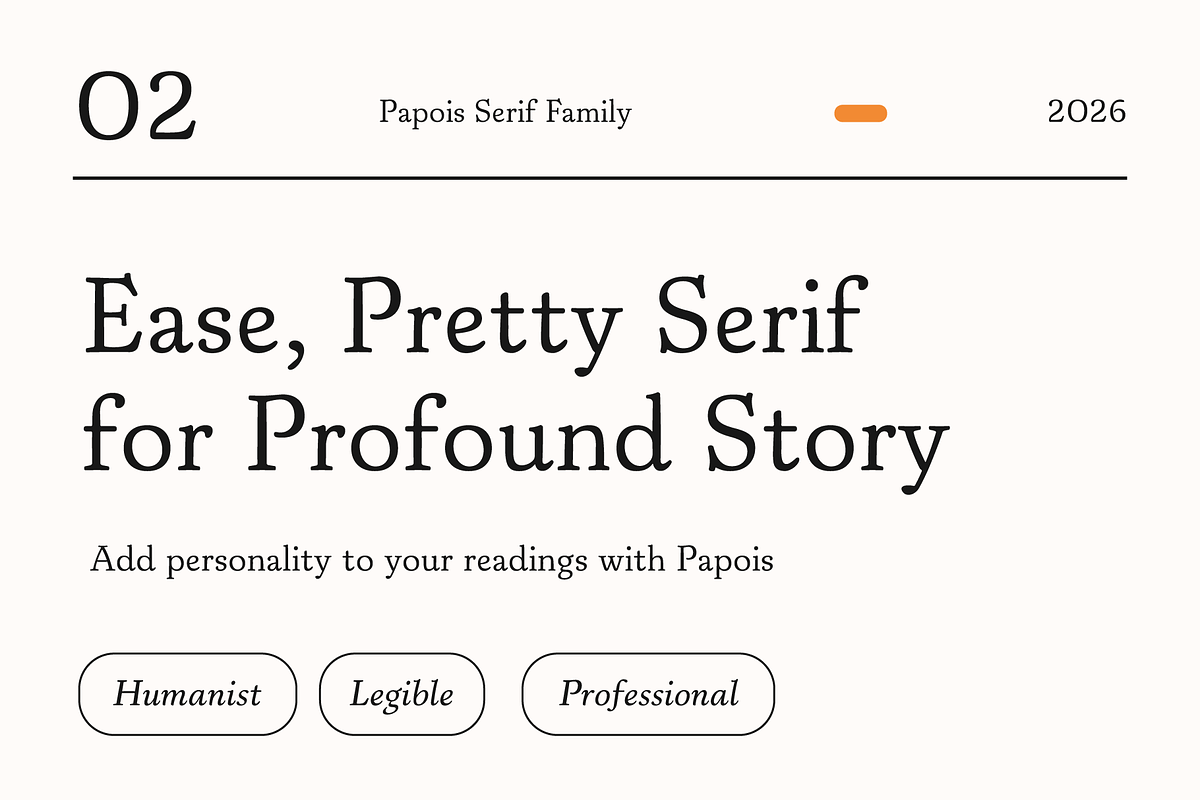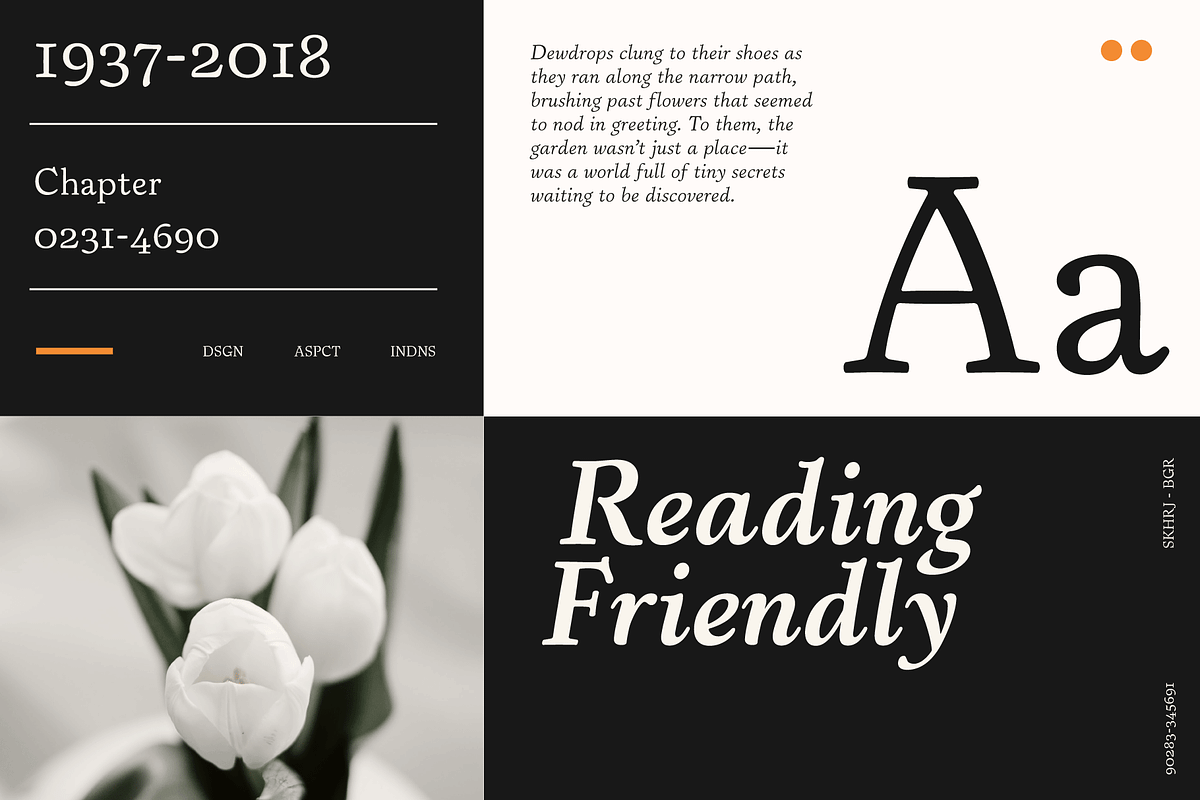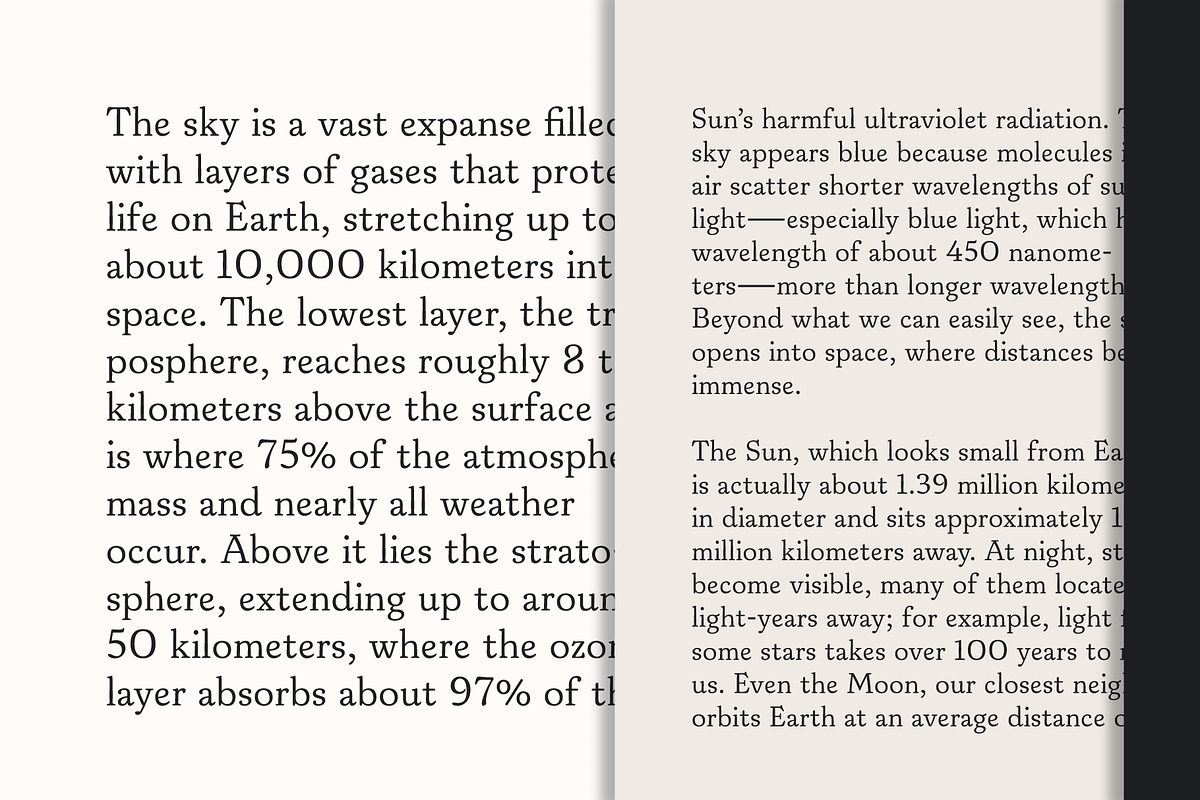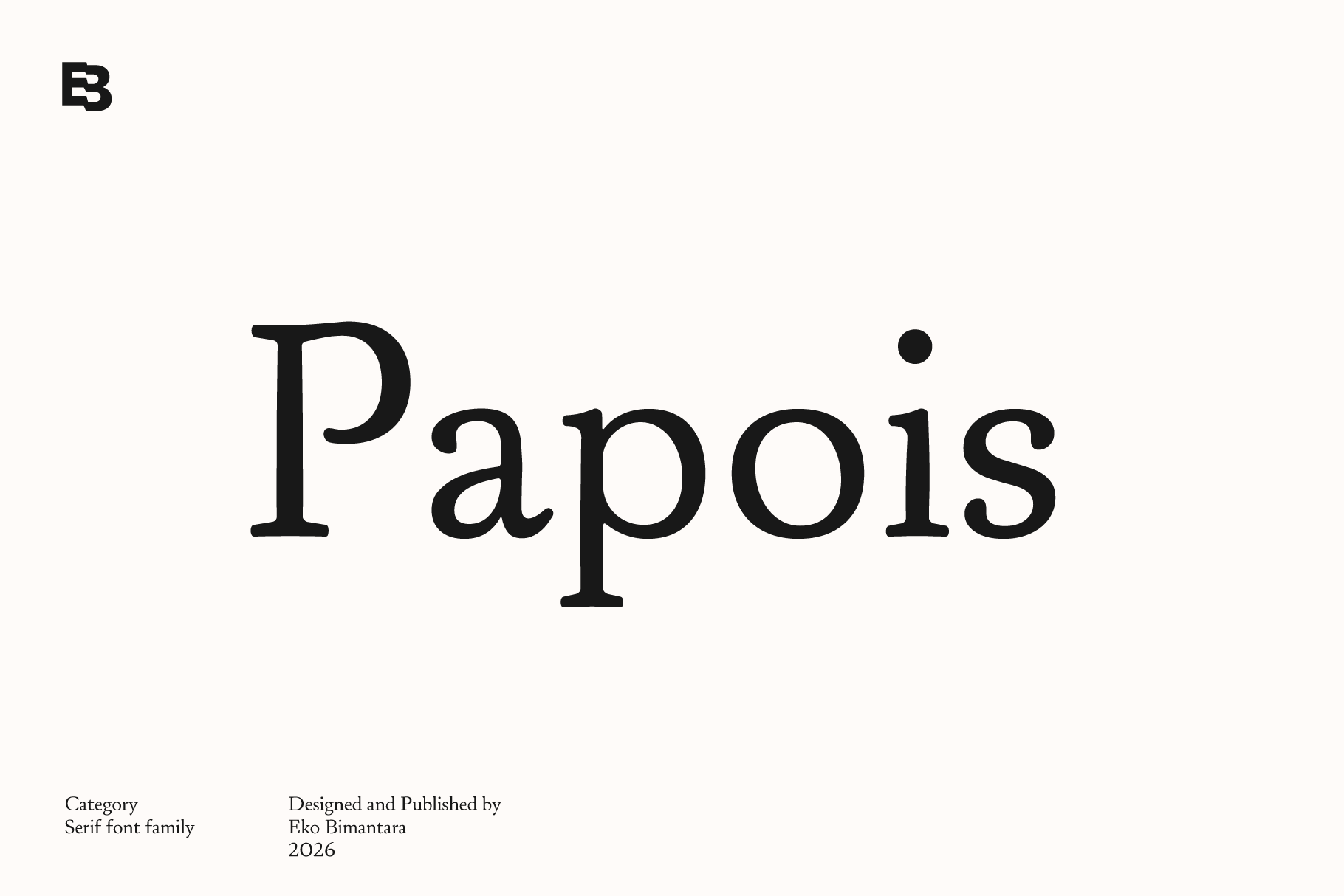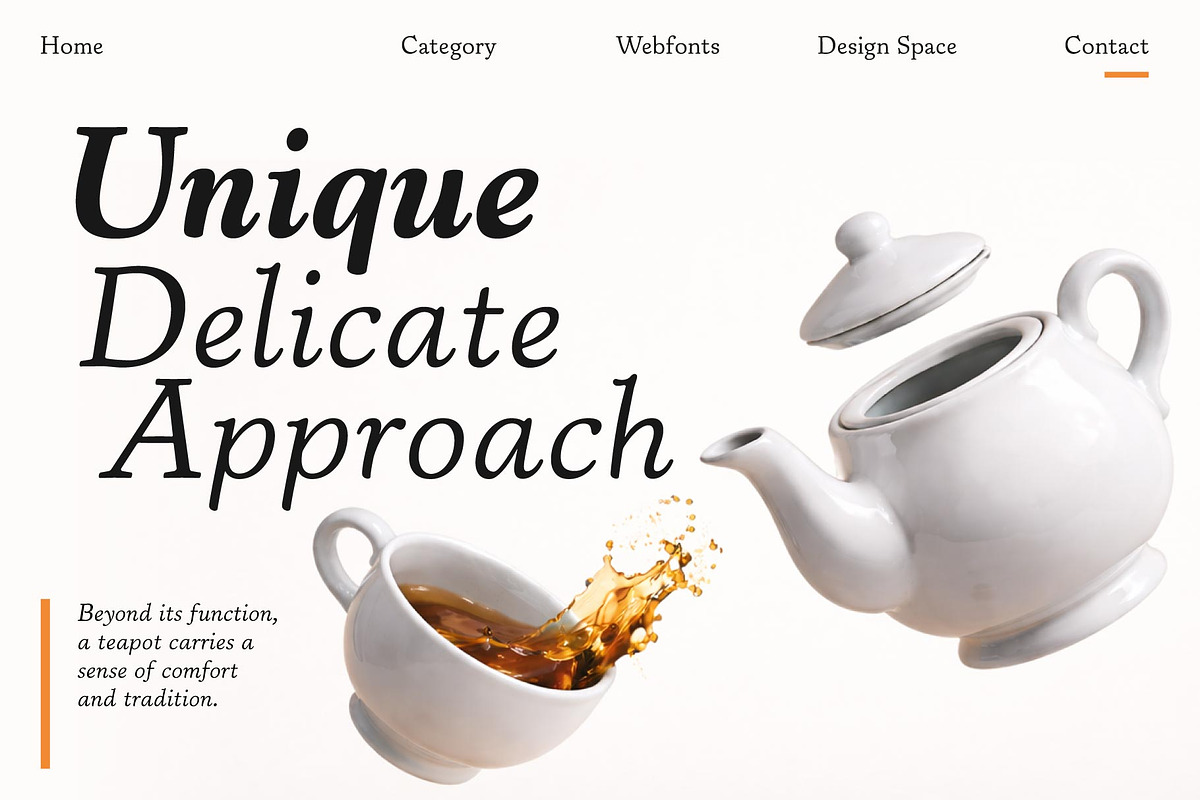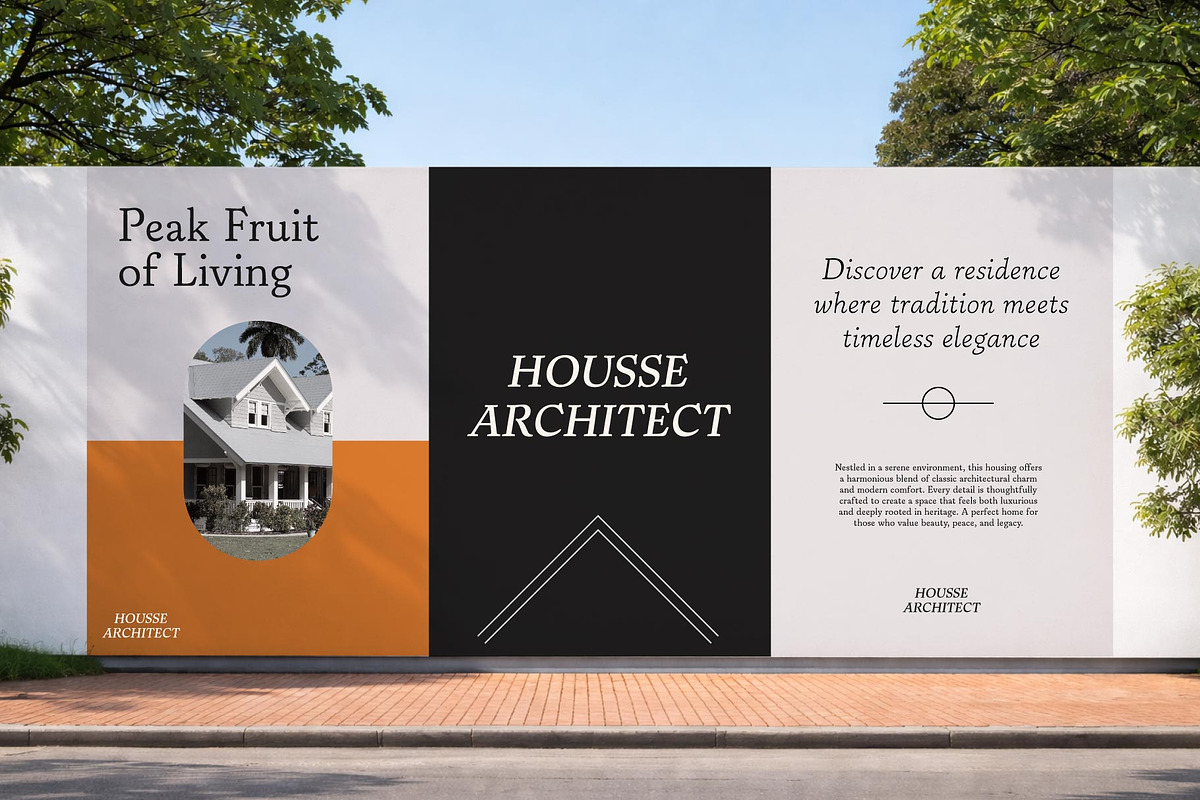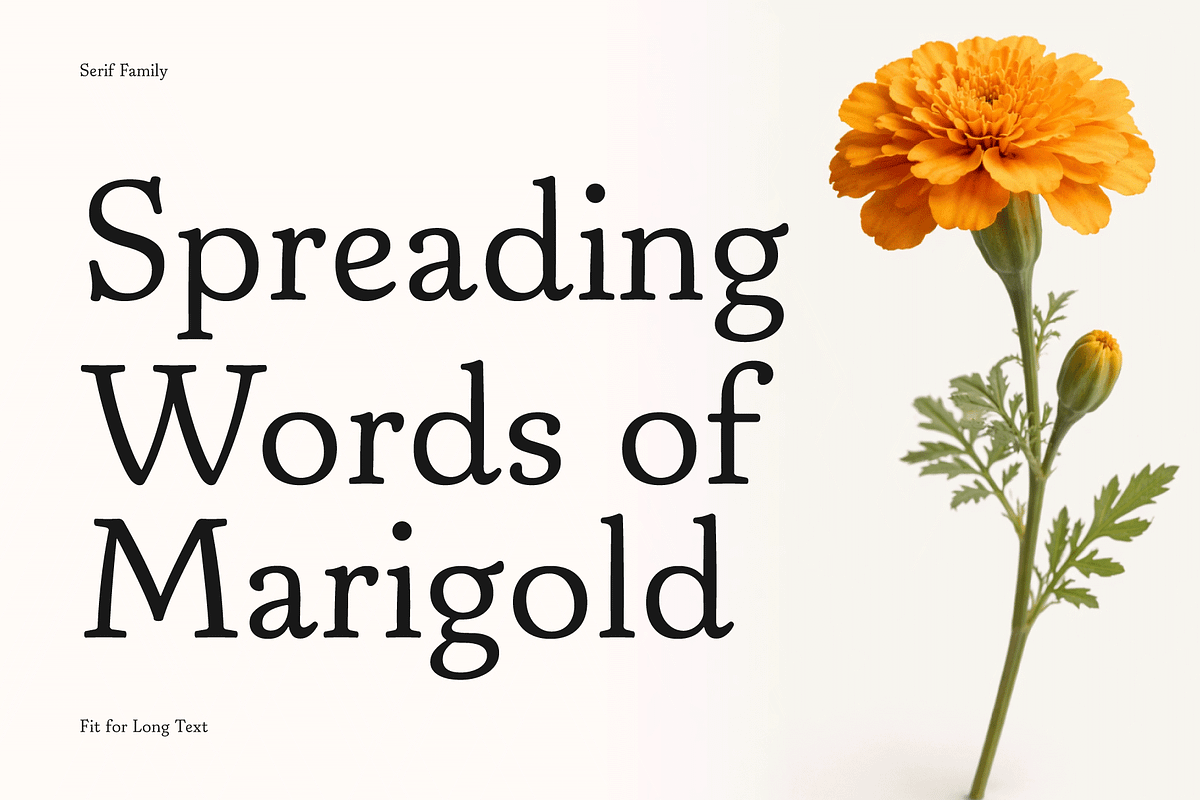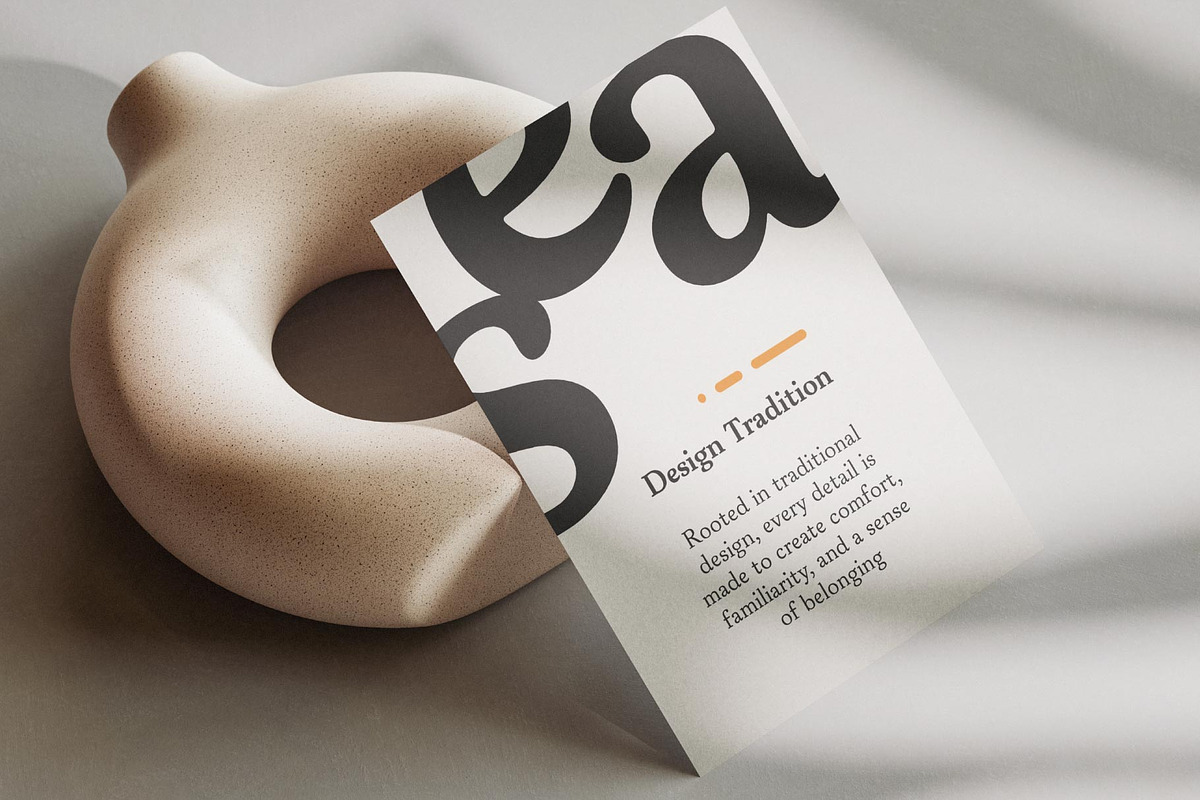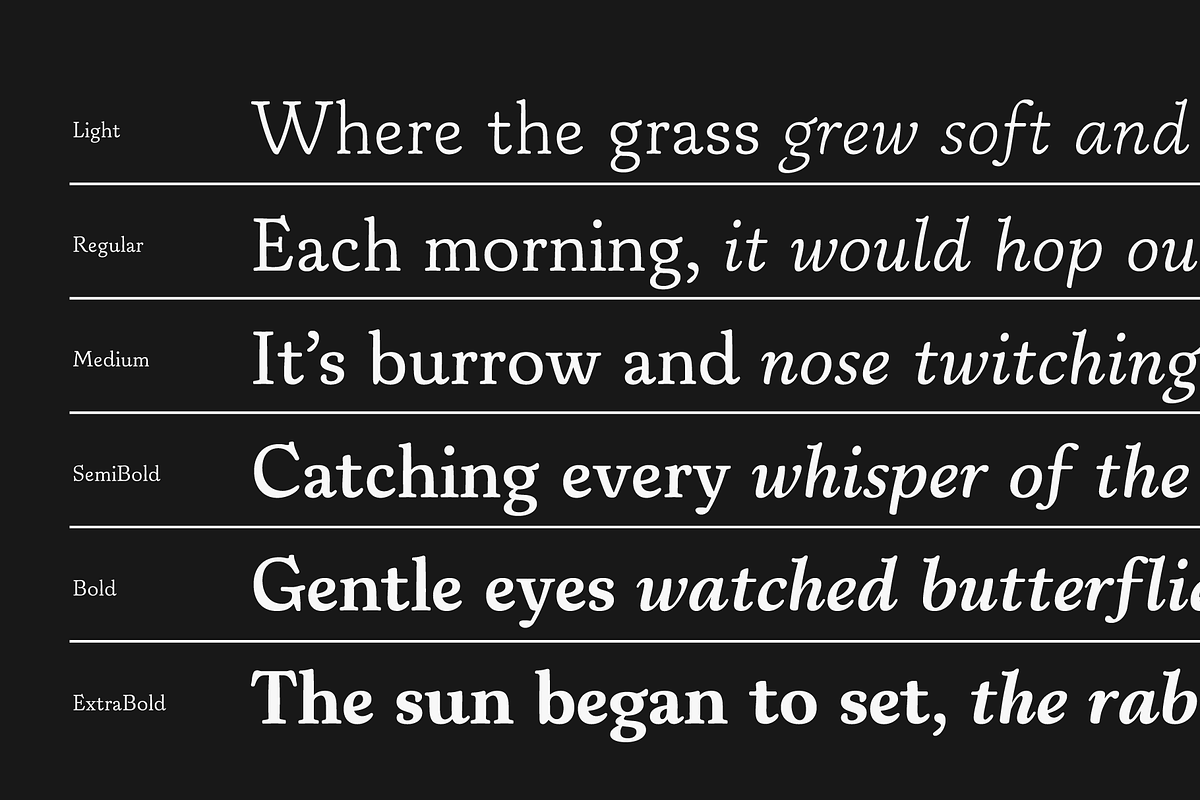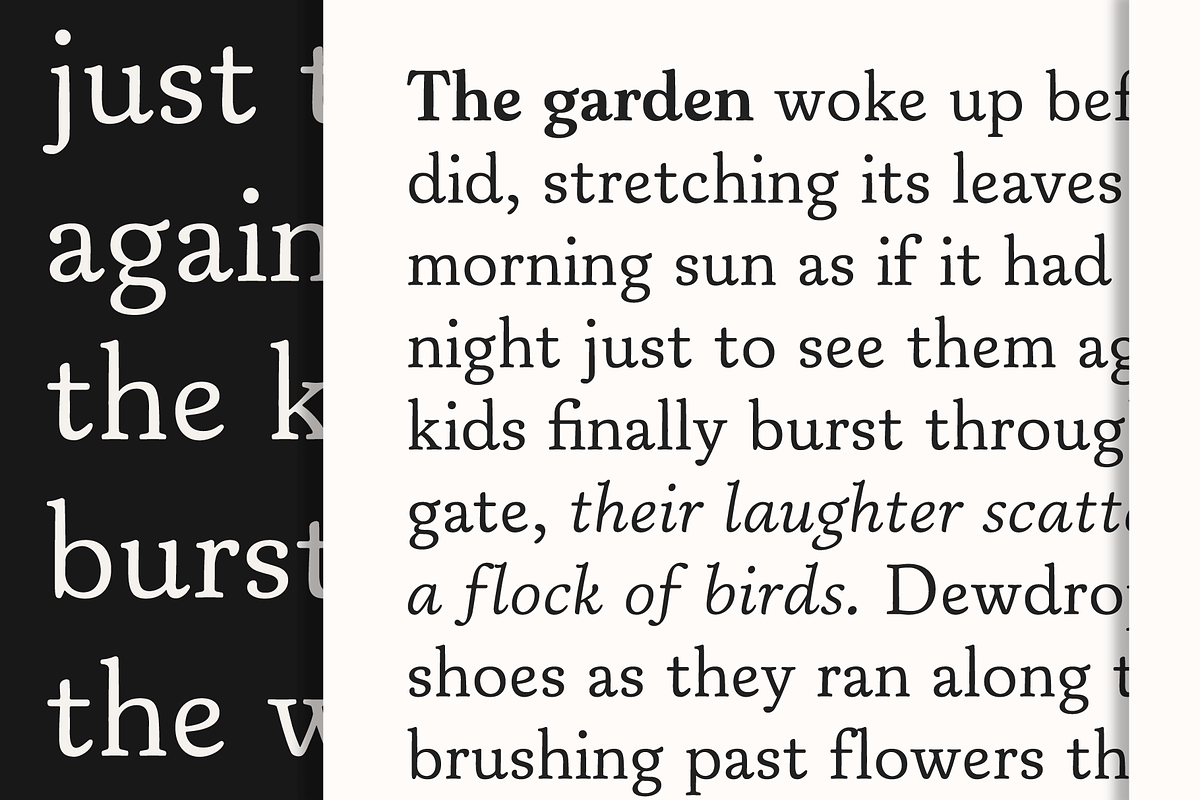
Papois; 12 Humanist Serif Fonts
Papois is a warm humanist serif typeface, carries the warmth and charm of early 20th-century American old-style serifs. It features soft edges, moderate stroke contrast, and a gentle slight diagonal stress that reflects its calligraphic roots. The letterforms feel organic rather than mechanical . Its gentle curves and approachable forms create a friendly yet refined tone, while maintaining clarity and balance for both display and long-form use. With a complete family of 12 styles ranging from light to extrabold, each accompanied by matching italics, Papois offers a flexible typographic system that adapts effortlessly—from elegant editorial layouts to distinctive branding—bringing a subtle, human touch to every composition.